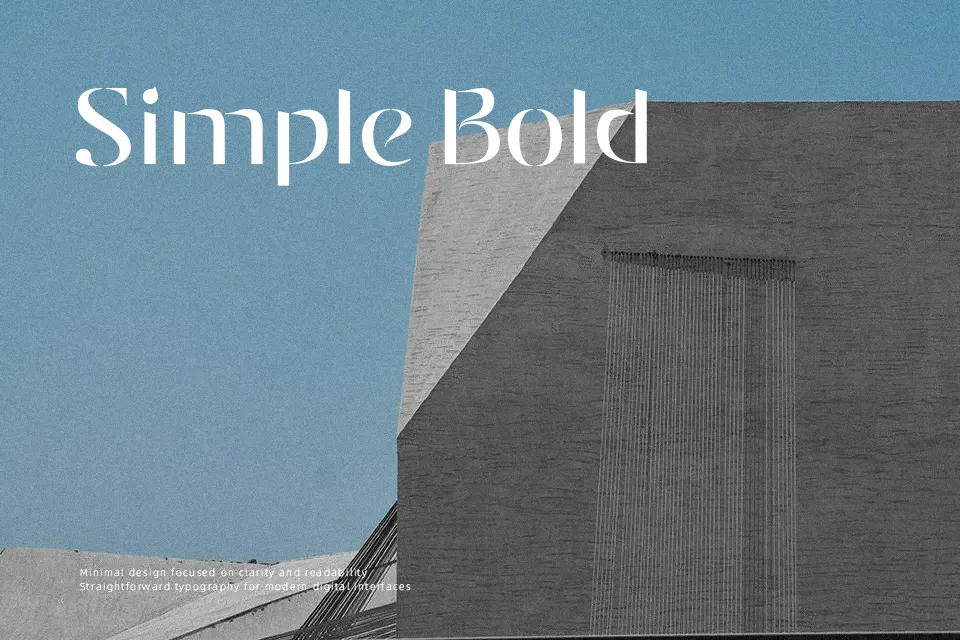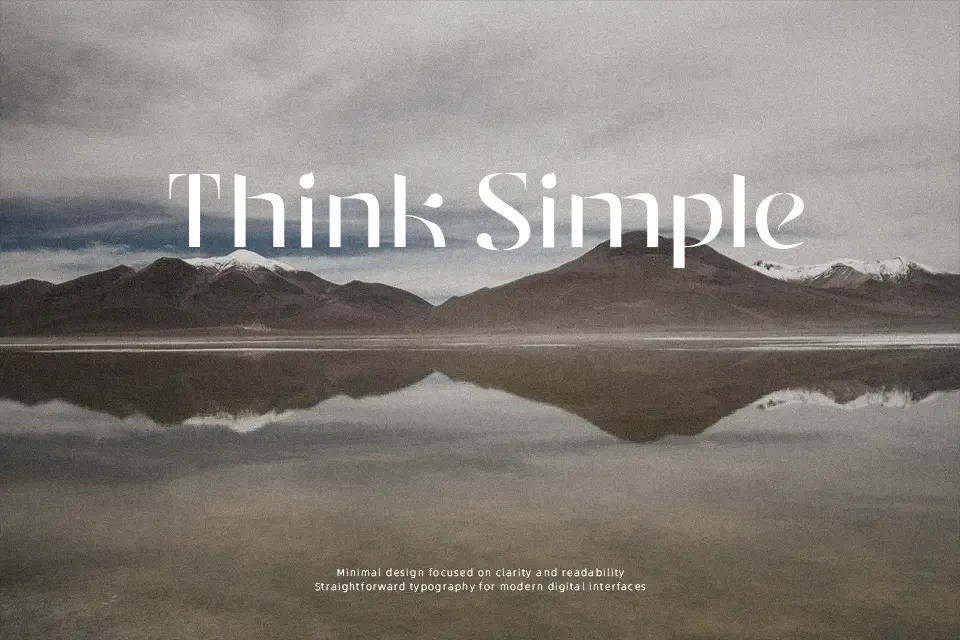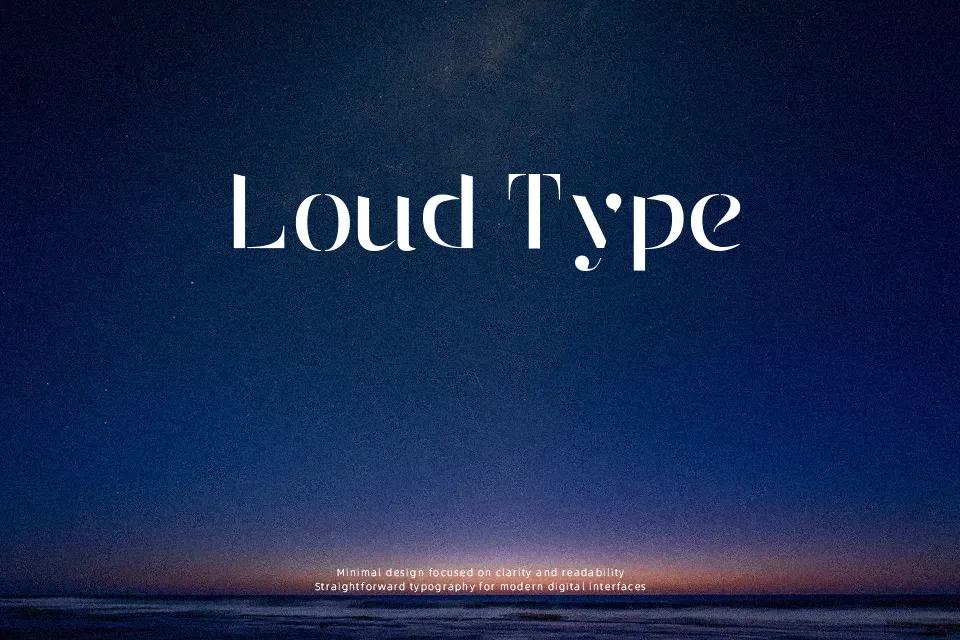
Stancilo Font
Stancilo Font showcases an elegant display serif construction defined by high stroke contrast, sculpted serifs, and subtle inner cutouts. Balanced character proportions and moderate letter spacing maintain crisp definition across headline compositions and identity graphics. The typeface delivers strong visual weight when applied to fashion magazine covers, boutique wine labels, exhibition posters, and high-end advertising headers. However, the delicate terminals and stylized structural gaps reduce legibility when set in continuous body copy or small caption sizes. For best typographic impact, designers should reserve the letterforms for prominent display settings where the sharp architectural details remain immediately recognizable.
Best For: editorial headlines, luxury product packaging, fashion branding, exhibition poster titles
Not Ideal For: continuous body text, mobile interface captions, technical documentation, dense spreadsheet data
Perfect for branding, fashion, and headline, with a creative and display style.